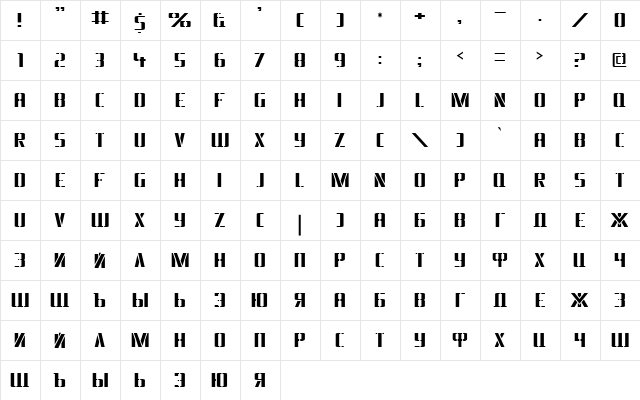
DS Army Cyr Regular
Design Context for DS Army Cyr Typeface
DS Army Cyr has the no-nonsense character of military stencilling and tactical signage, projecting authority and directness.
Designed for tactical branding, military-inspired apparel, action game UI, and utility-focused signage.
Pro Tip: Use DS Army Cyr at medium-to-large sizes where its utilitarian structure can be appreciated — the character detail gets lost at small sizes.